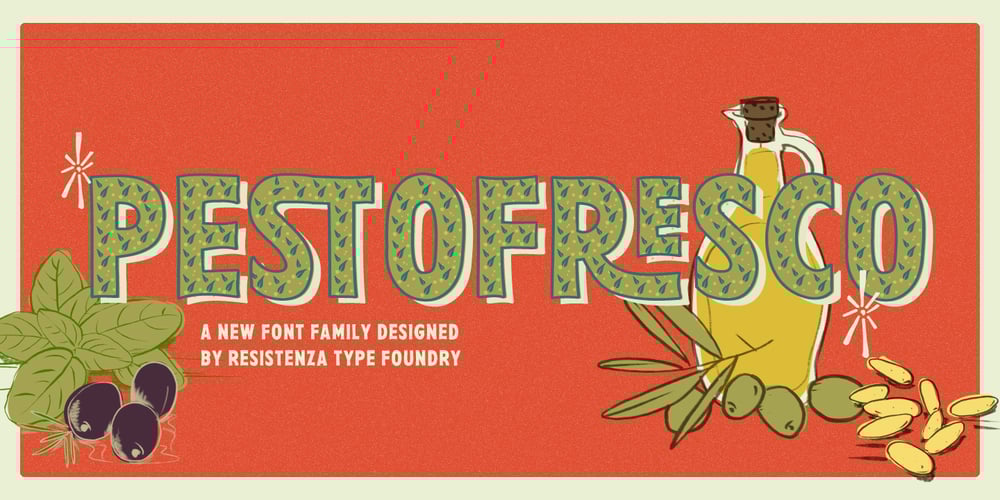
Pesto Fresco Font Family was designed by Giuseppe Salerno, Paco González and published by Resistenza. Pesto Fresco contains 28 styles and family package options. Pesto Fresco: A Handcrafted Typeface RevolutionPesto Fresco is not just your ordinary font family; it’s a meticulously crafted lettering system designed to bring the warmth and authenticity of handmade typography to the digital realm. With 28 distinct fonts, this sans serif typeface exudes the charm and imperfections of artisanal lettering, infusing your designs with a DIY aesthetic and a distinctly human touch.Each character bears the subtle nuances and irregularities that evoke the essence of hand-drawn lettering, adding depth and character to your compositions. Its design philosophy flawlessly integrates analog nostalgia with modern digital convenience, presenting a font system that harmoniously connects the past to the present.By overlaying Pesto Fresco Regular with any of its decorative counterparts, you can achieve a myriad of graphic effects, allowing you to tailor the typography to suit your specific design needs. Whether you’re aiming for a rustic, weathered look or a playful, whimsical vibe, Pesto Fresco offers endless possibilities for creative expression.Discover the richness of Pesto Fresco’s typographic palette with its extensive collection of ligatures, accessible through OpenType features included in this font. These ligatures offer a seamless fusion of letterforms, enhancing readability and aesthetic appeal. Whether it’s joining characters for smoother transitions or adding decorative flourishes, the ligatures in Pesto Fresco elevate your typography to new heights.From packaging design to digital layouts, this font family seamlessly integrates into both digital and print environments. Its versatility guarantees that whether you’re shaping a brand identity, designing a website, or crafting attention-grabbing advertisements, Pesto Fresco serves as the ideal typographic cornerstone for your vision.Pesto Fresco stands out as a breath of fresh air—a reminder of the beauty found in imperfection, the charm of the handmade, and the enduring appeal of vintage design. Embrace the warmth, character, and DIY spirit of Pesto Fresco, and elevate your creations with its distinctive aesthetic today.